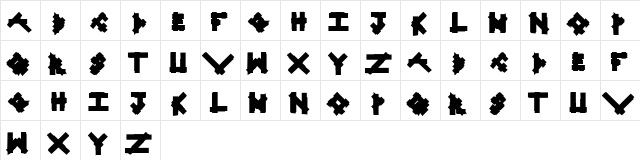
Linear Curve Fatty Normal Free Font
Linear Curve Fatty Normal
Design Context for Linear Curve Fatty
Linear Curve Fatty is a composed and adaptable typeface that performs quietly and consistently across a wide range of design contexts.
Pro Tip: Use Linear Curve Fatty in both headline and body roles to test its range before committing to a single application.